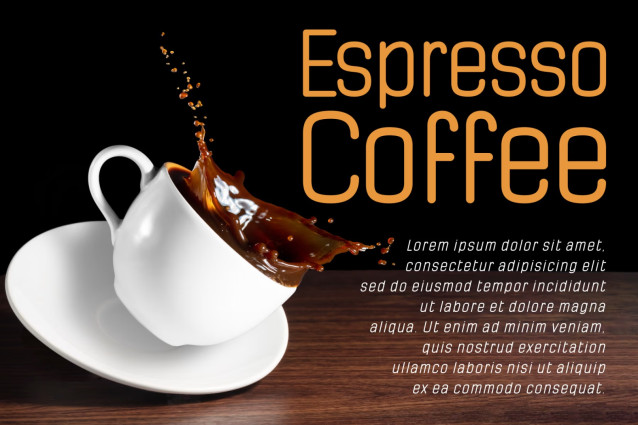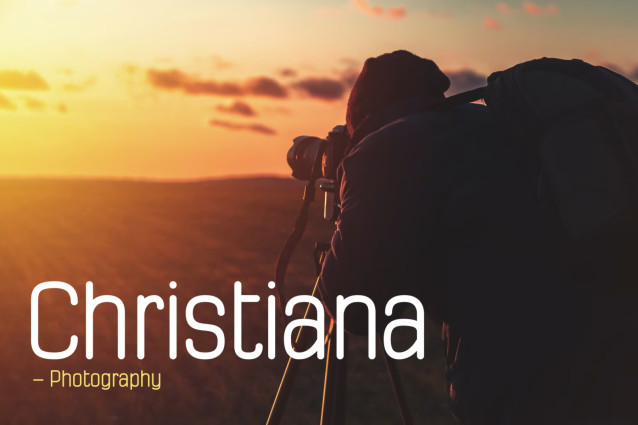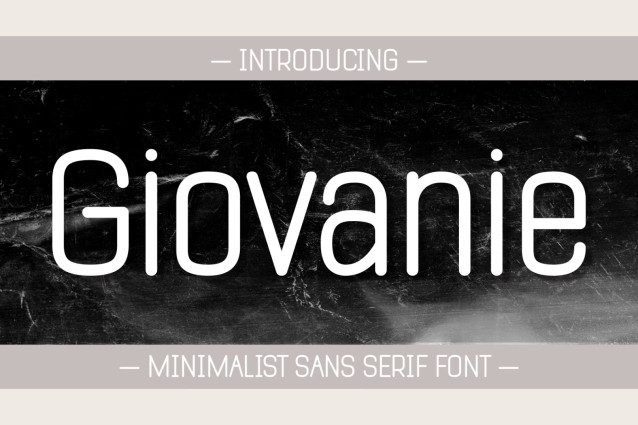
Giovanie Font Family
Giovanie is a neat and casual sans serif font. Incredibly versatile and readable, this font is the perfect choice for branding, logos, stickers, t-shirts or anything that needs a sleek and stylish look.